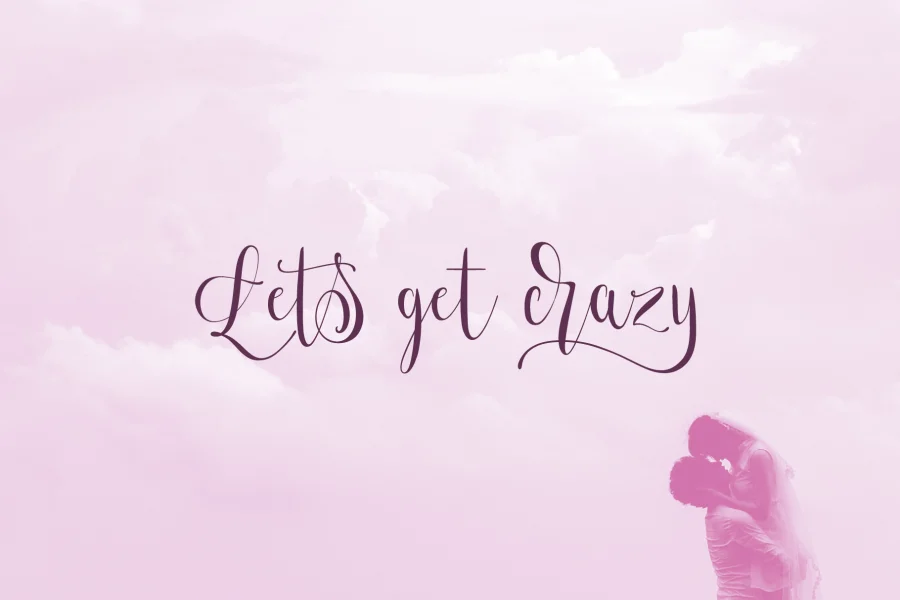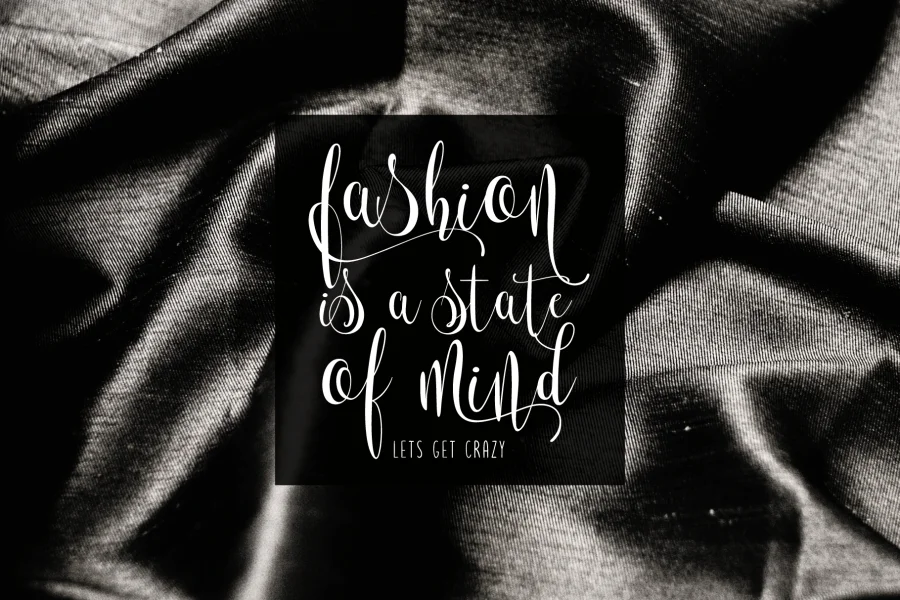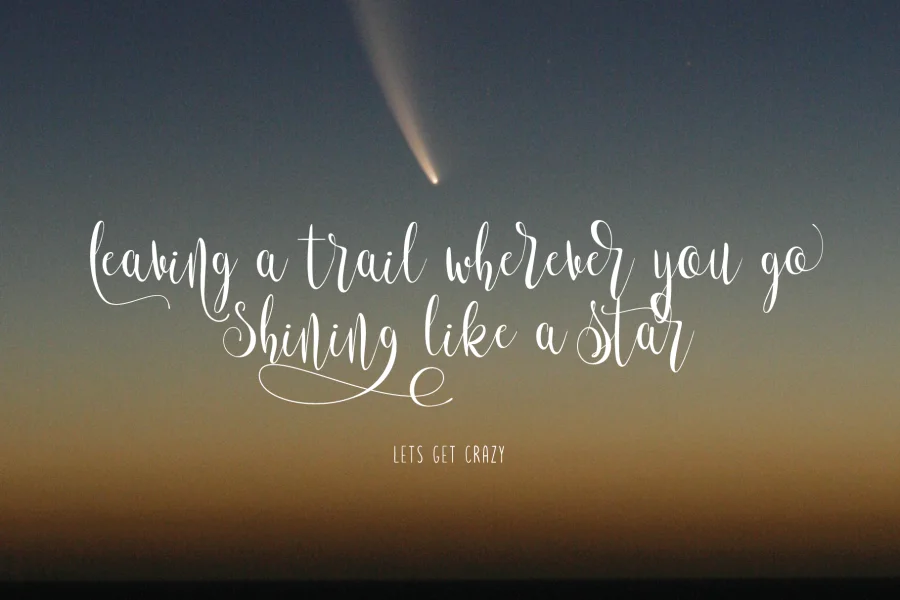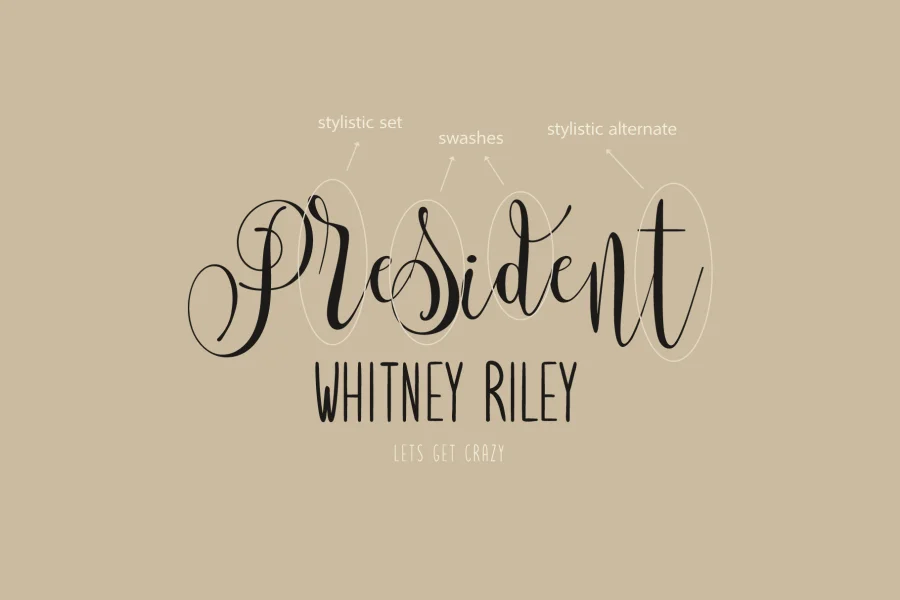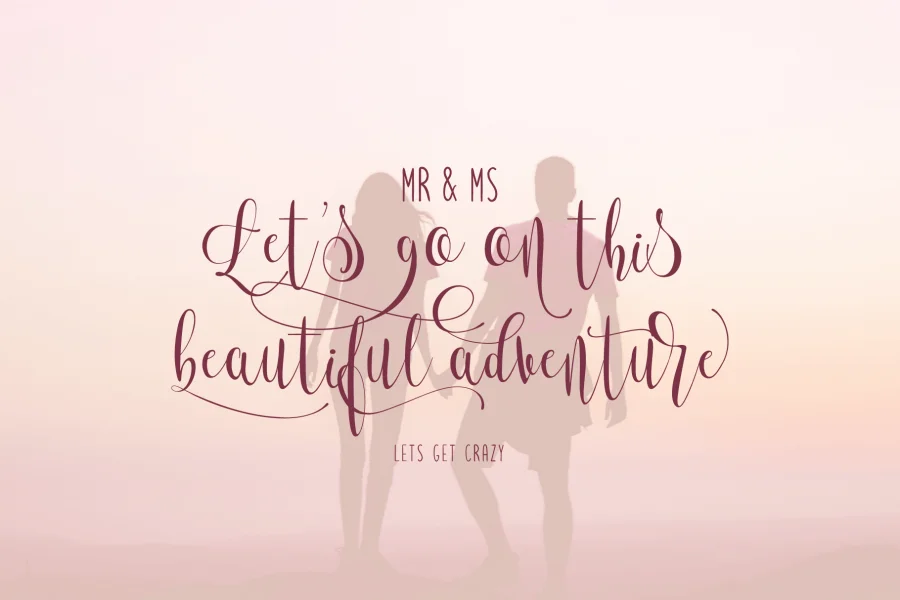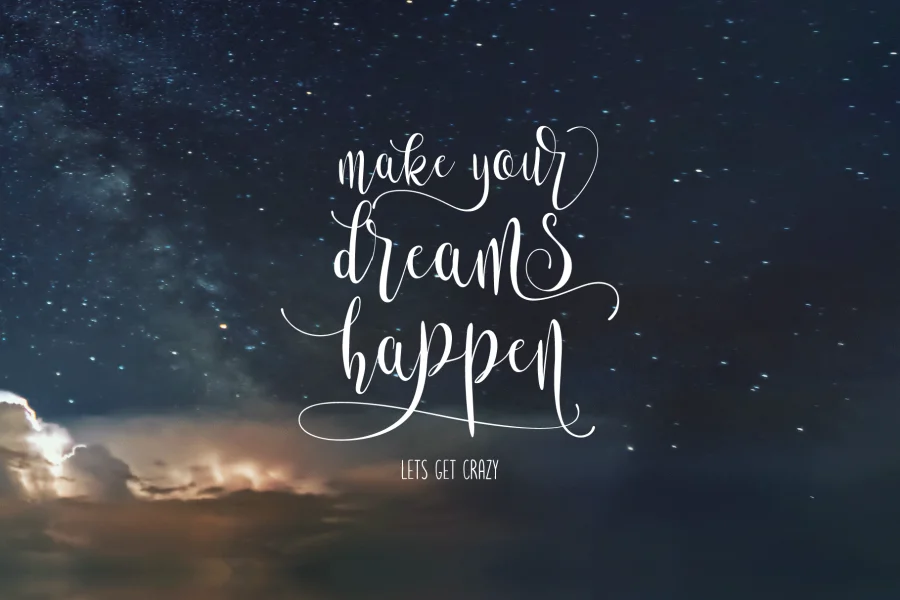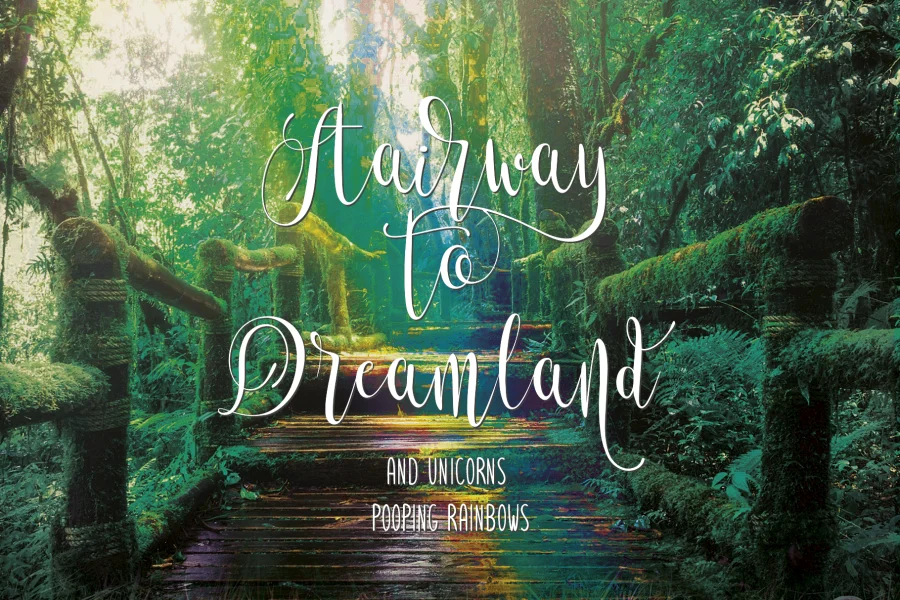
This font is part of the ‘Lets get crazy’ family, which pairs a script font (Lets get crazy) with a sans serif (Lets get crazy sans). Together they form the perfect pair that will effortlessly inspire your new design ideas. Combine the two fonts and make any of your creative project stand out. Besides, the commercial version has OpenType features like Kerning, Alternates, Ligatures, Stylistic Sets and Swashes.